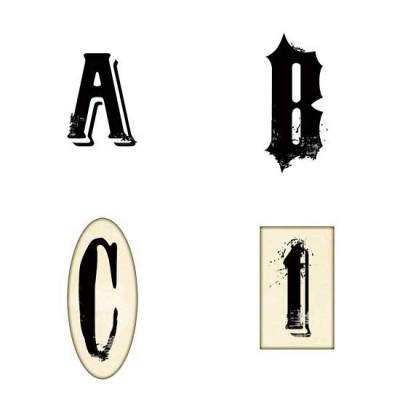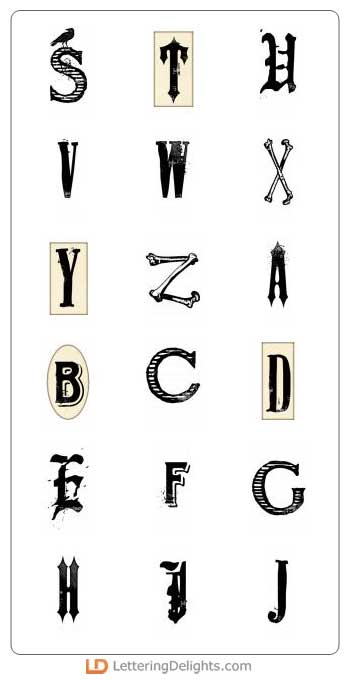
When expressing some eerie observations, the Black Magic alphabet will convey your chronicles frightfully well. Combine this alphabet with the Black Magic graphics and Black Magic paper for a terrifying ghostly brew.